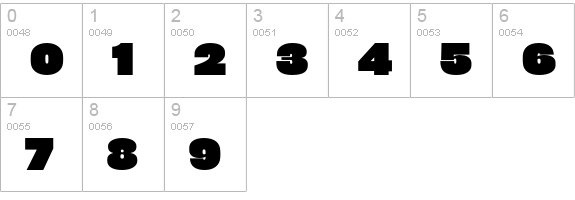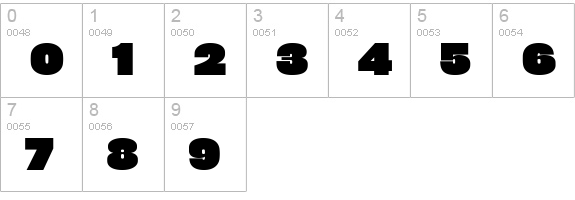
Rhode-BlackNormal Font Details
Rhode-BlackNormal font is a modern and versatile typeface that exudes elegance and sophistication. With its bold and striking design, this font is perfect for creating eye-catching headlines, titles, and logos. The clean and balanced letterforms of Rhode-BlackNormal font make it easily readable, making it an excellent choice for both digital and print projects. Whether you are designing a website, creating a brochure, or designing branding materials, this font will add a touch of professionalism to your work. One of the best features of Rhode-BlackNormal font is that it is freely available to download at FontsMarket.com. This means that you can enhance your designs without having to worry about any additional costs. The freedom to access and use this font opens up a world of creative possibilities. Rhode-BlackNormal font is perfect for anyone looking to make a bold statement in their designs. Its versatility allows it to be used in various design contexts, from minimalist and modern to more traditional and classic aesthetics. So why wait? Download Rhode-BlackNormal font today from FontsMarket.com and bring your designs to life with its sleek and stylish appearance. With its free availability, you can take your creativity to new heights without breaking the bank.